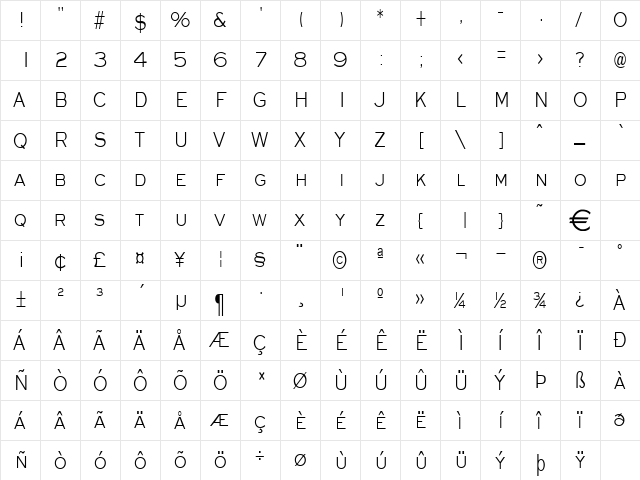
EyeglassThin Normal
Design Context for EyeglassThin Typeface
EyeglassThin offers clean, dependable letterforms without strong stylistic allegiance, making it a practical choice for designers who need flexibility. Its slender proportions lend an understated elegance to any composition.